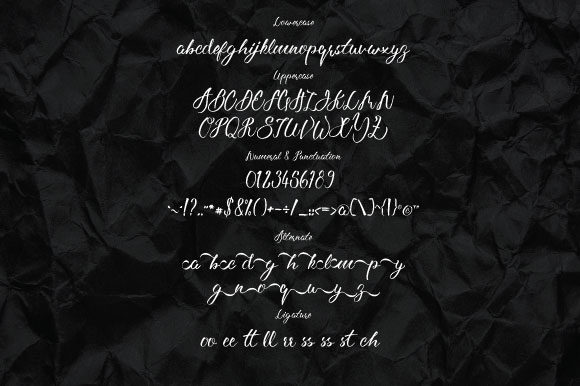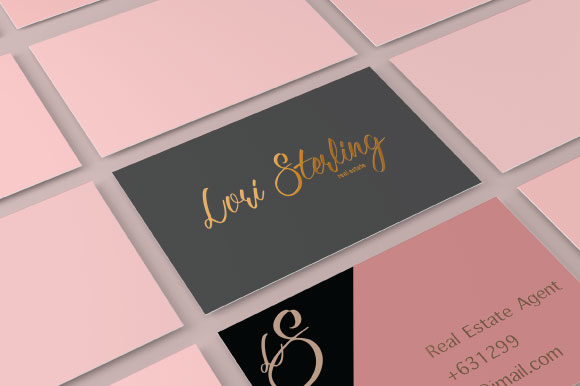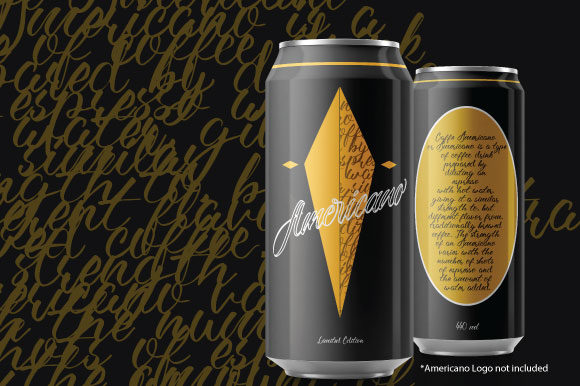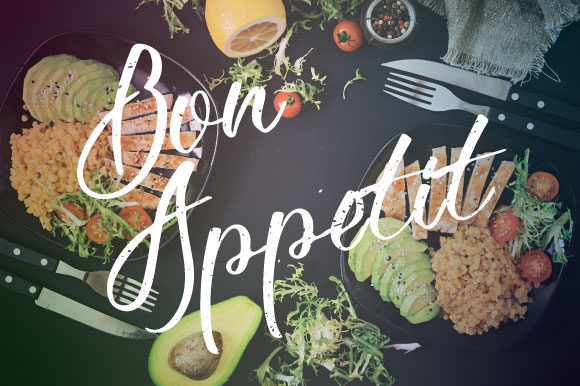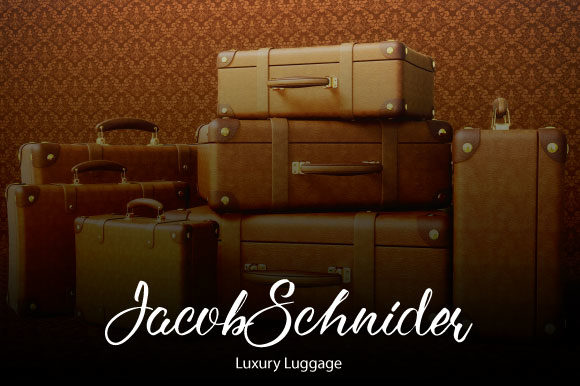
HomeScript FontsSterling Font Script Fonts Sterling Font FacebookXPinterestWhatsApp Sterling Font Poster 2 Sterling Font Poster 3 Sterling Font Poster 4 Sterling Font Poster 5 Sterling Font Poster 6 Sterling Font Poster 7 About Sterling Font Sterling is a carefully crafted handwritten font with a light and elegant charm. Get inspired by its unique feel! DOWNLOAD ON CREATIVE FABRICAThis font is sold and delivered by Creative Fabrica. Font Canyon may earn a commission if you buy through this link. People also explored Beillia Font Paper Signature Font Botonique Font Hello Stranger Font Pepper & Lemon Font Sweater Snow Font Monday Font Lovely Amatis Font Impassive Font 287 0 TagsSterling Font Previous articleNatthalie FontNext articleMont Ambassador Duo Font LEAVE A REPLY Cancel reply Comment: Please enter your comment! Name:* Please enter your name here Email:* You have entered an incorrect email address! Please enter your email address here Website: Save my name, email, and website in this browser for the next time I comment. Personal Use Free Engebrechtre Personal Use Free Read more about this font Special Day Personal Use Free Read more about this font Letter Hanger Personal Use Free Read more about this font Sarwendah Personal Use Free Read more about this font BLOG Elegant Wedding Invitation Fonts – Handwritten & Script Fonts Elegant Wedding Invitation Fonts Your wedding day is one of the most important moments of your life, and every detail matters—including your invitation design. Our... How to Cut Any Font on Cricut: Convert a Font to SVG (Free) To increase your work productivity, choose the most readable fonts. Free vs Paid Fonts: Why Investing in Premium Fonts Is Worth It